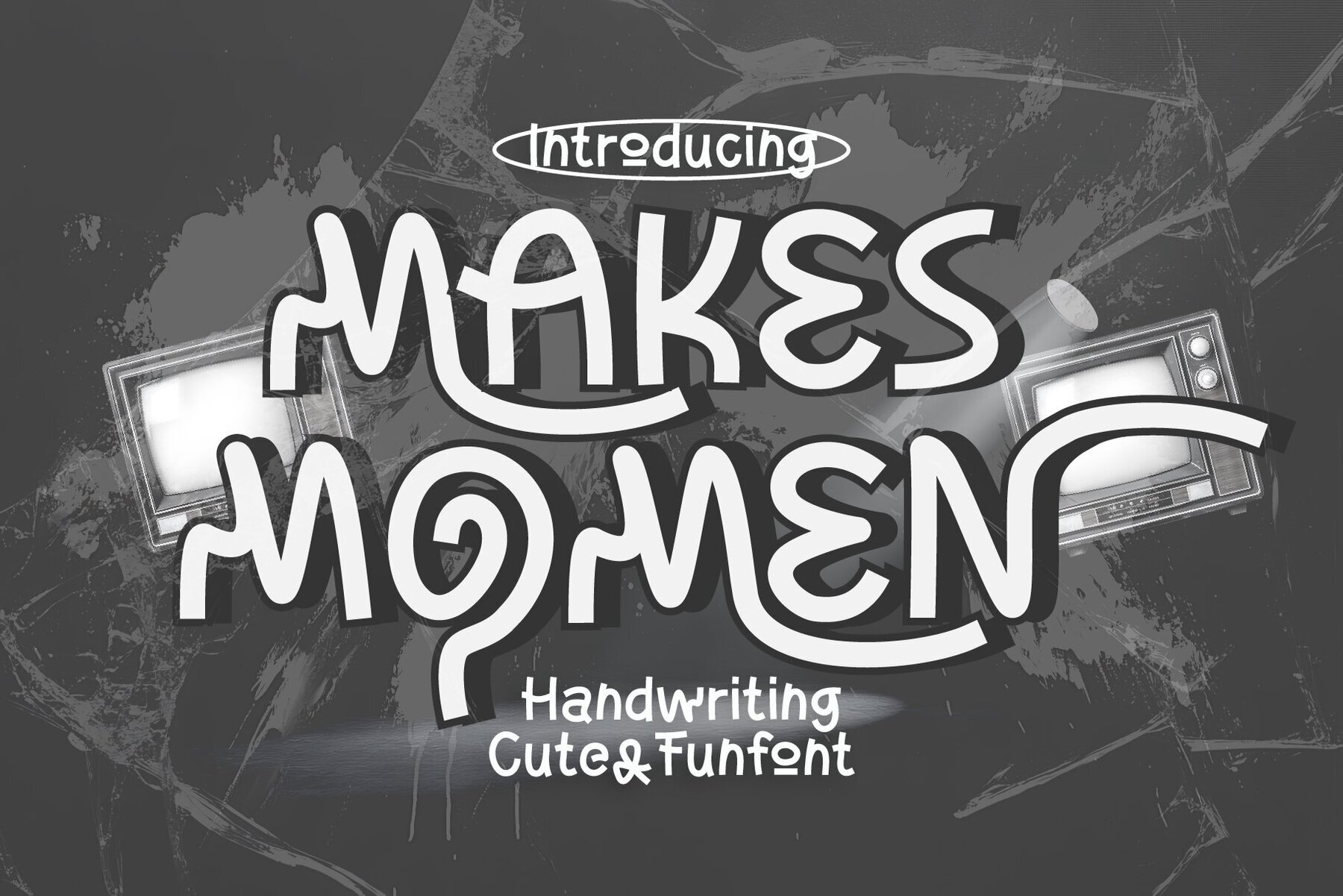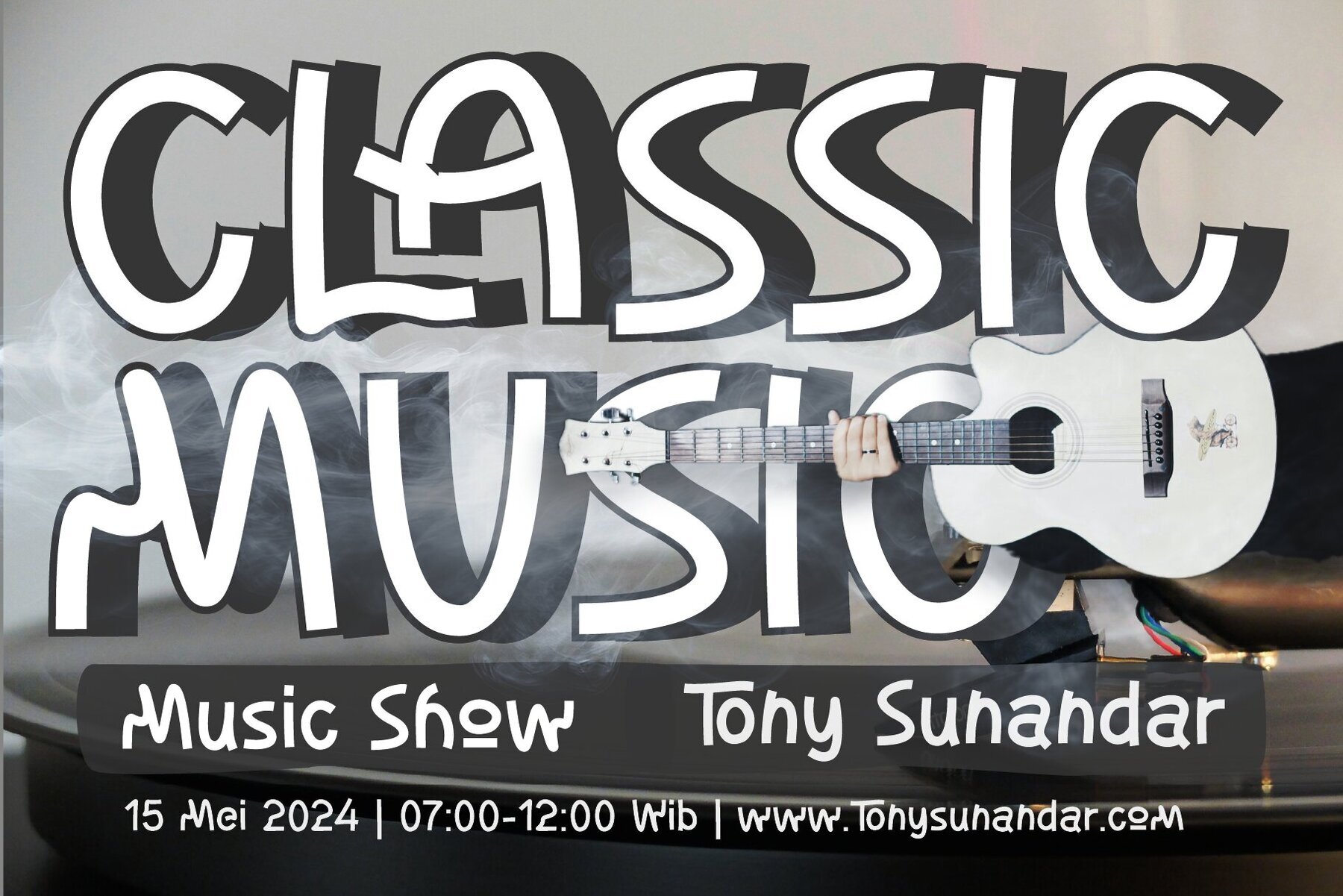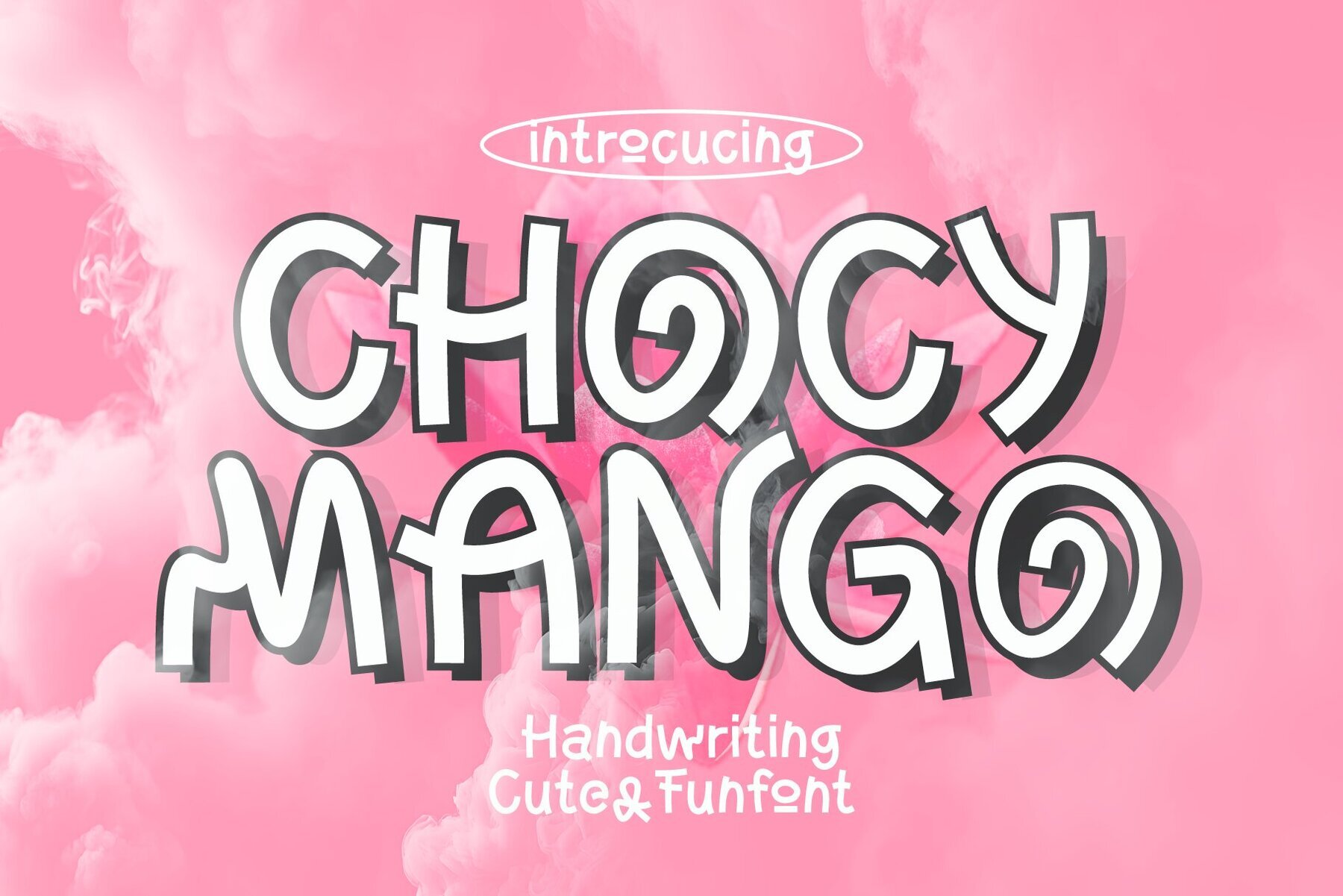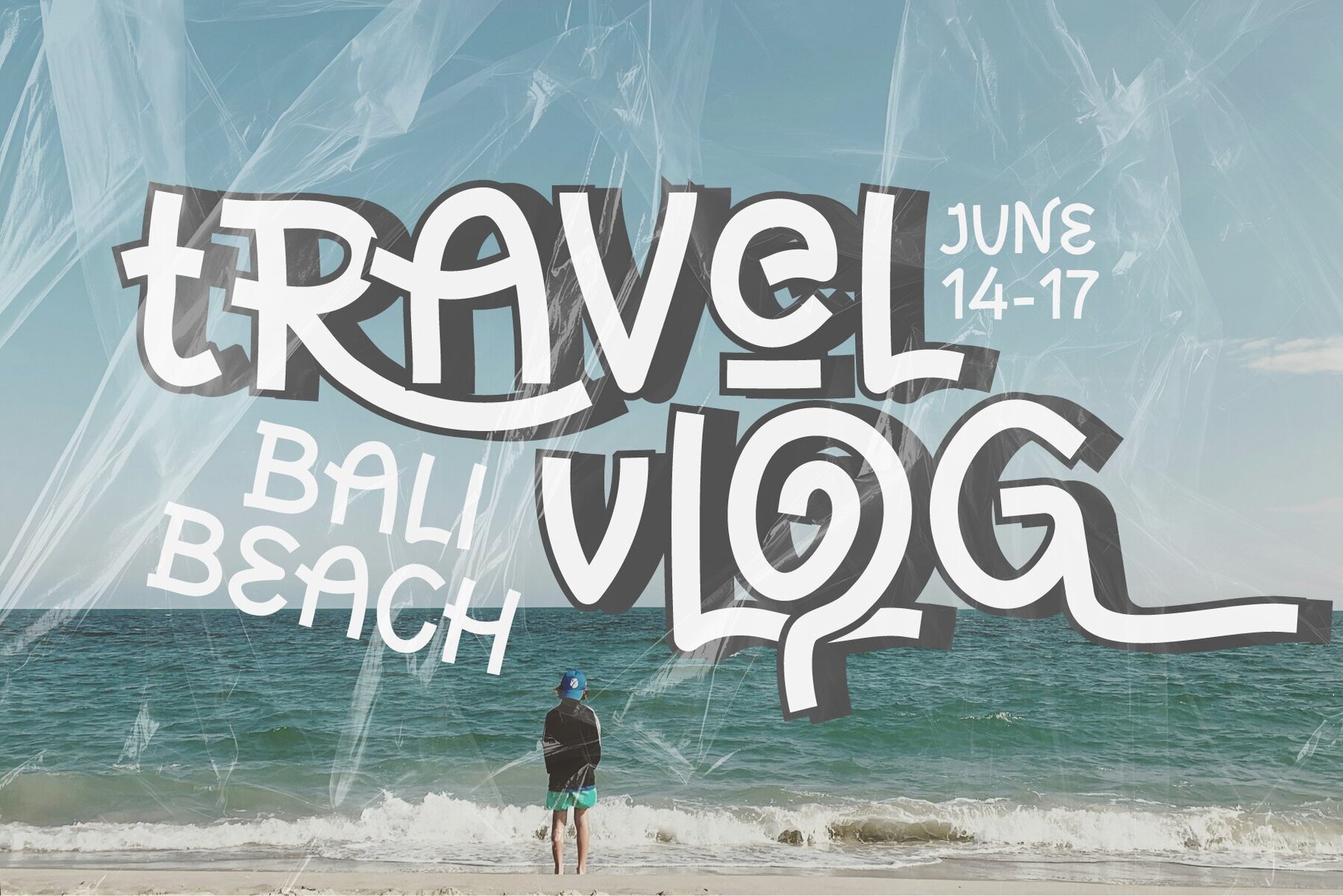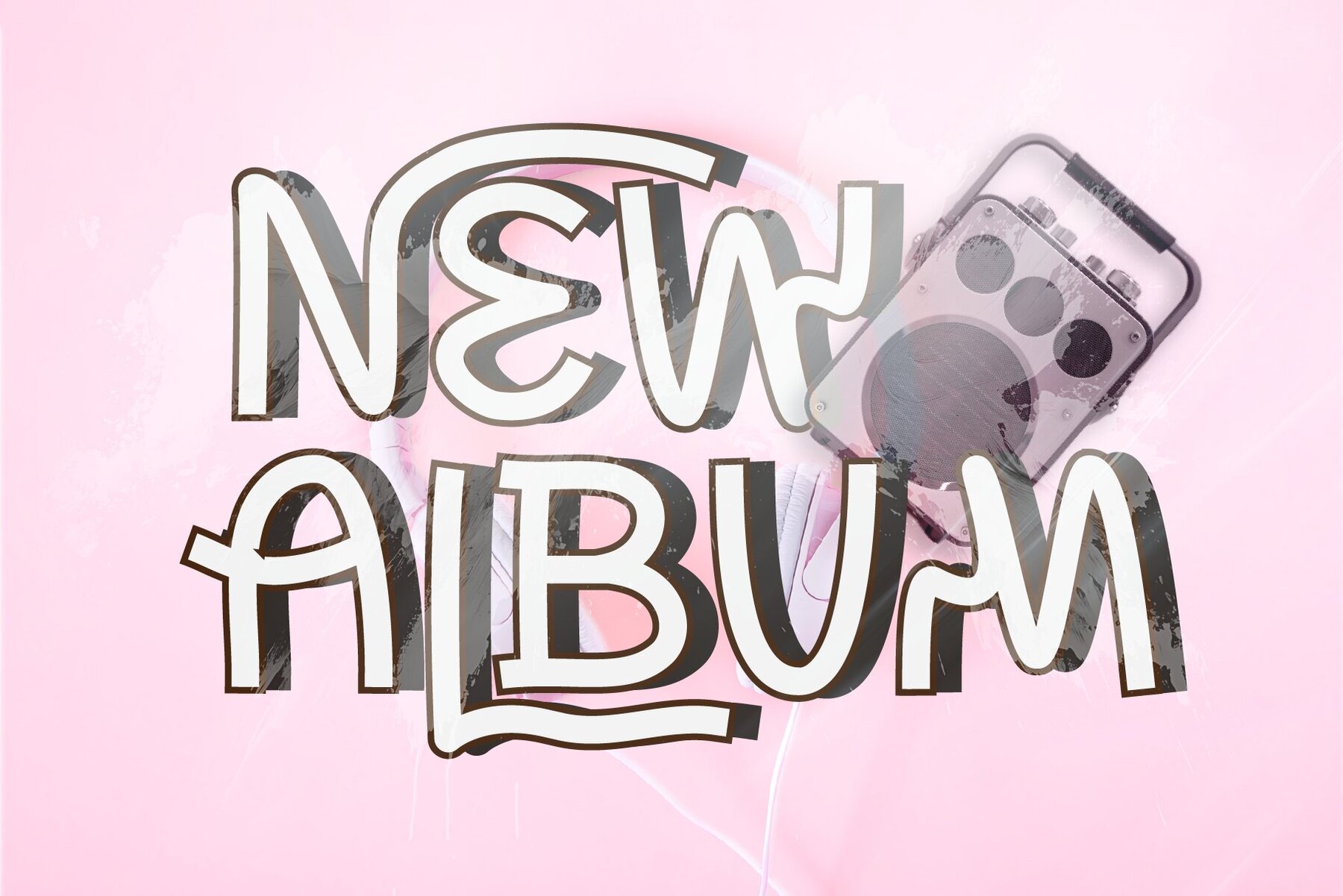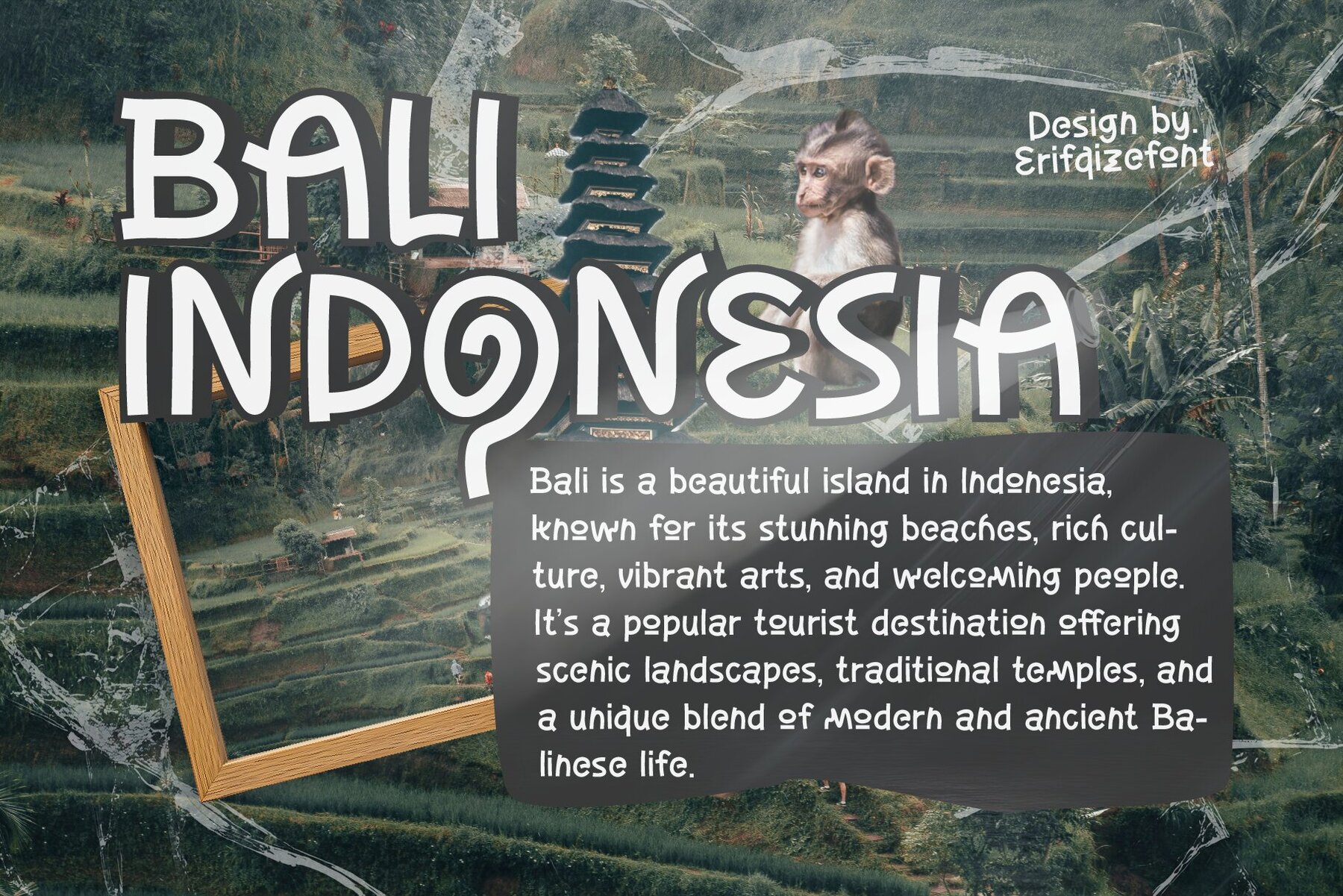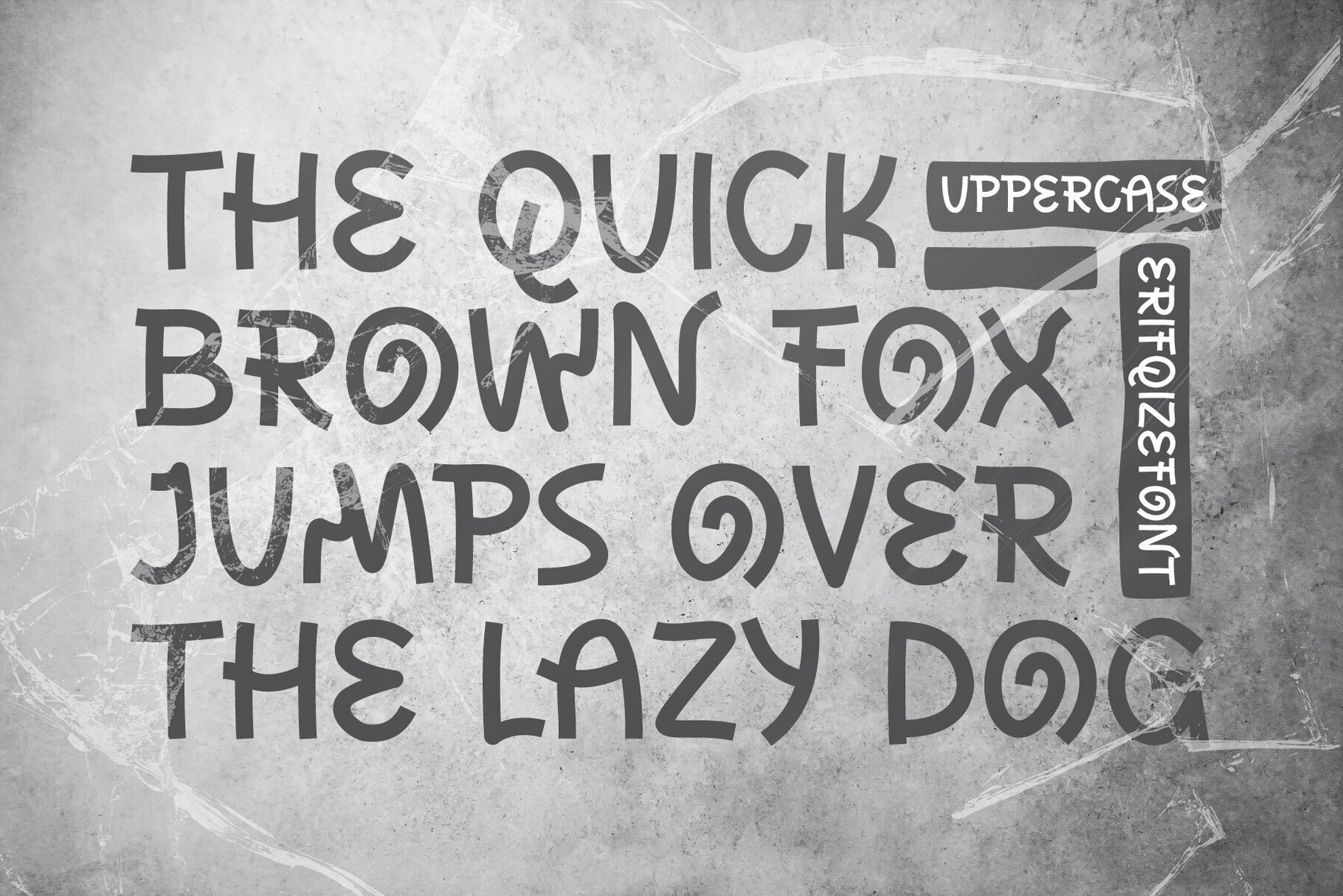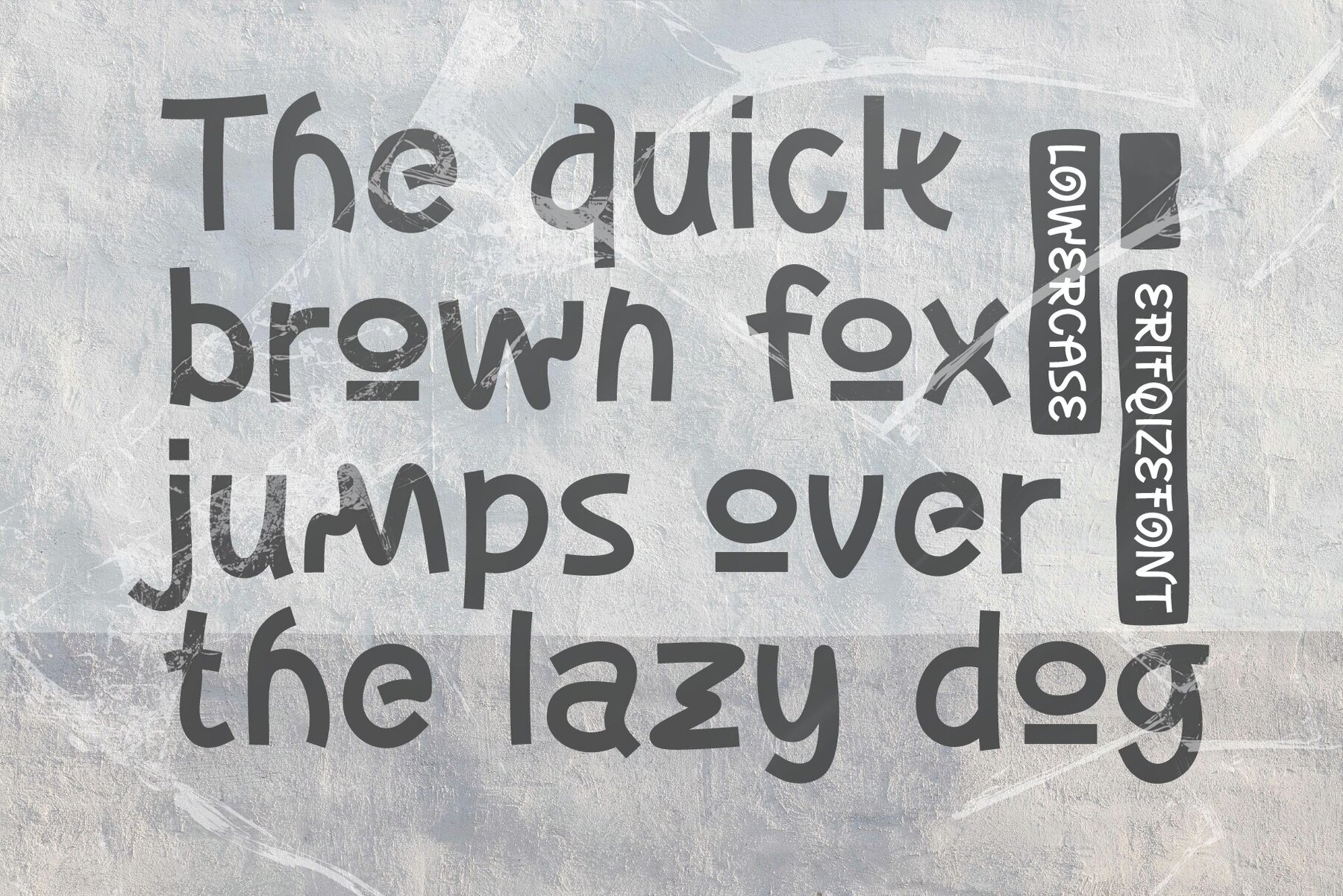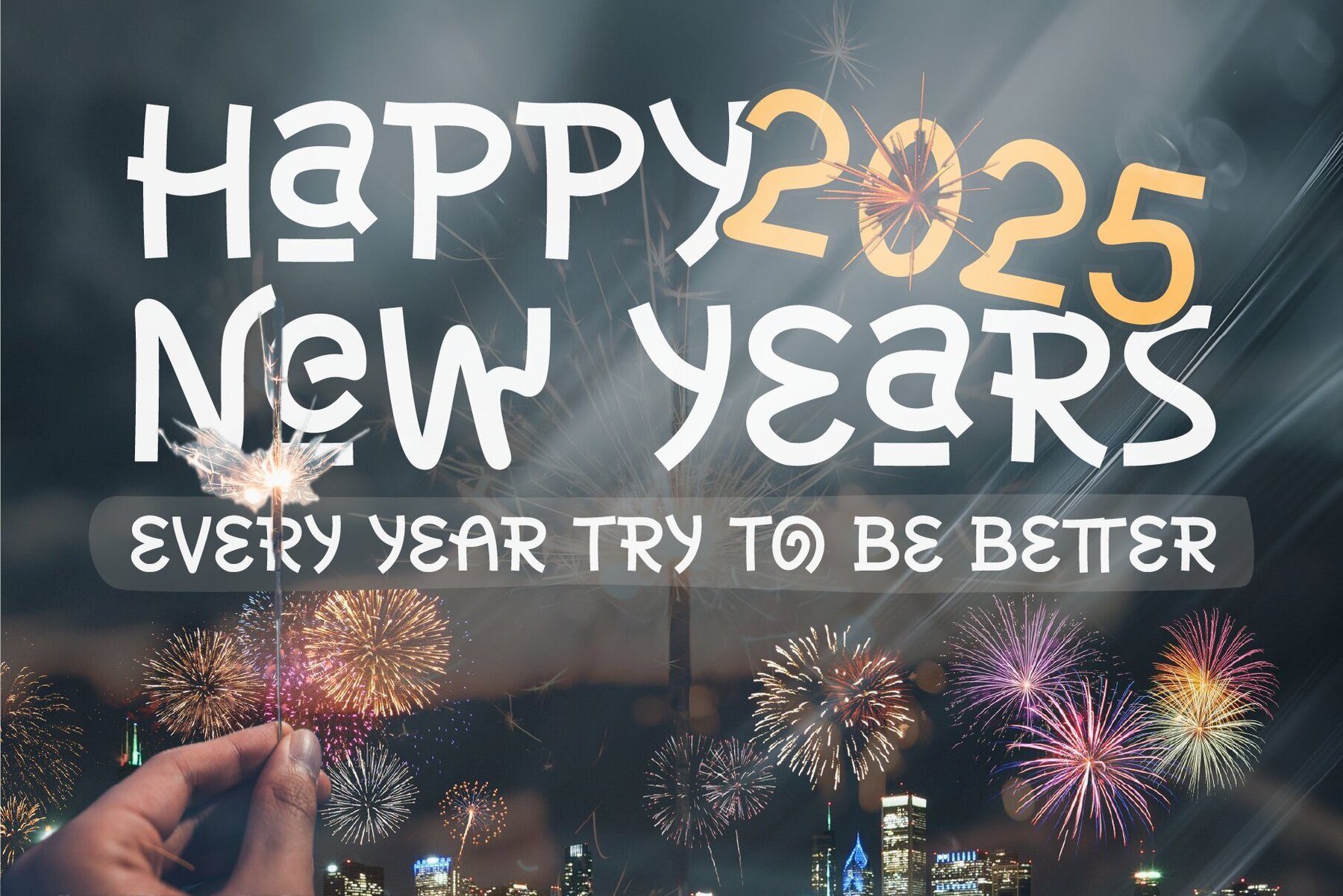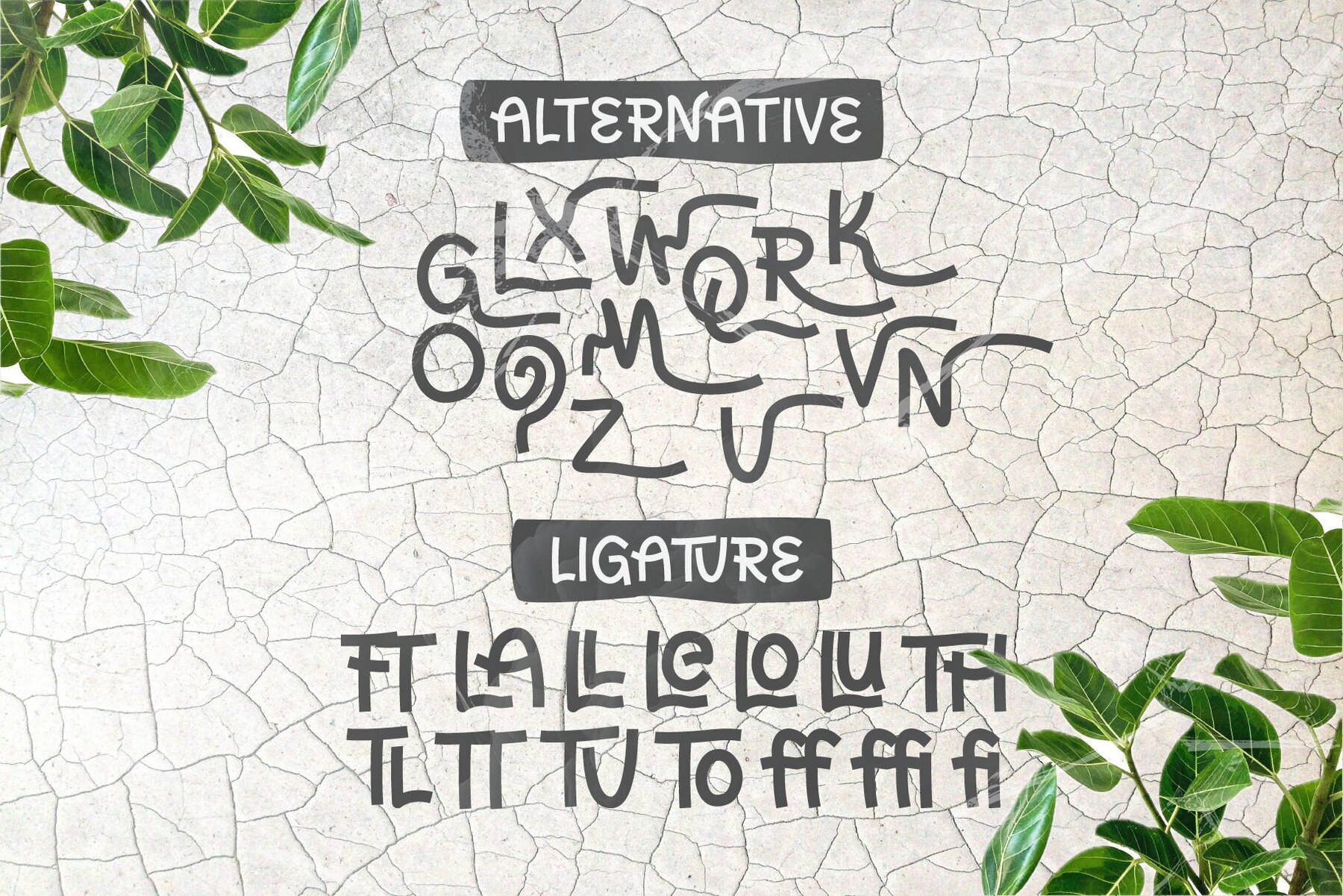
Makes Momen Font
Makes Momen
Infuse joy and charm into your projects with Makes Momen, a captivating handwritten-style font characterized by its bold, thick strokes and whimsical personality. This lively typeface instantly adds a fun-loving vibe to any creative work. Perfect for cheerful designs, it shines in invitations, quotes, branding, and more. Embrace the playful spirit of Makes Momen and watch your designs come to life with its delightful character.Makes Momen: A Playful Handwritten Font